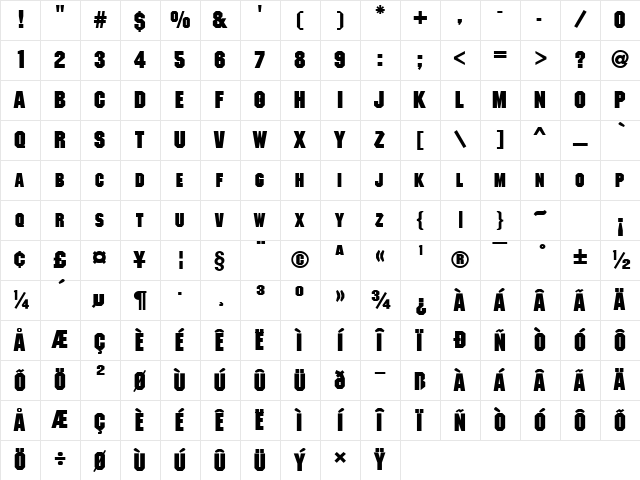
Complete MetalEncasement Bold glyph index. Displaying only characters natively supported by MetalEncasement Bold font.
MetalEncasement is a composed and adaptable typeface that performs quietly and consistently across a wide range of design contexts. Its bold stroke weight gives it real presence on the page.